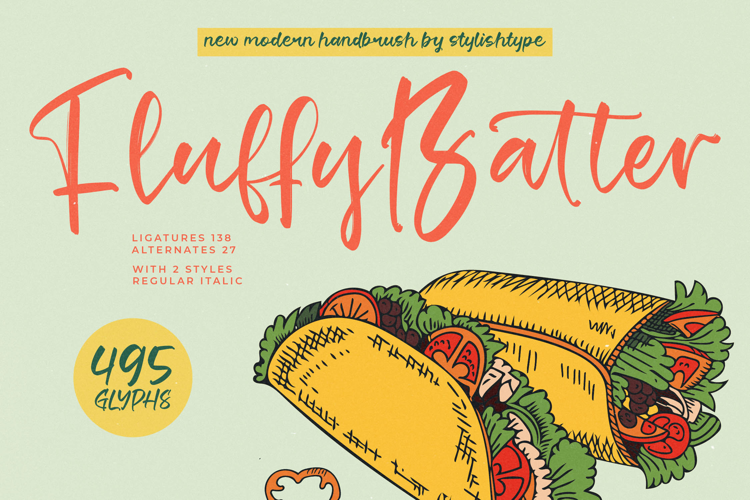
Fluffy Batter - Modern Handbrush Font
Inject immediate energy and authenticity into your branding with Fluffy Batter - Modern Handbrush Font. This dynamic display script captures the raw, spontaneous feel of high-quality brushwork, maintaining excellent legibility despite its expressive flow. It delivers essential visual impact for projects requiring a personalized touch. The textured edges and fluid connections ensure your designs feel genuinely organic and handcrafted, moving far beyond typical digital smoothness and enhancing brand resonance.